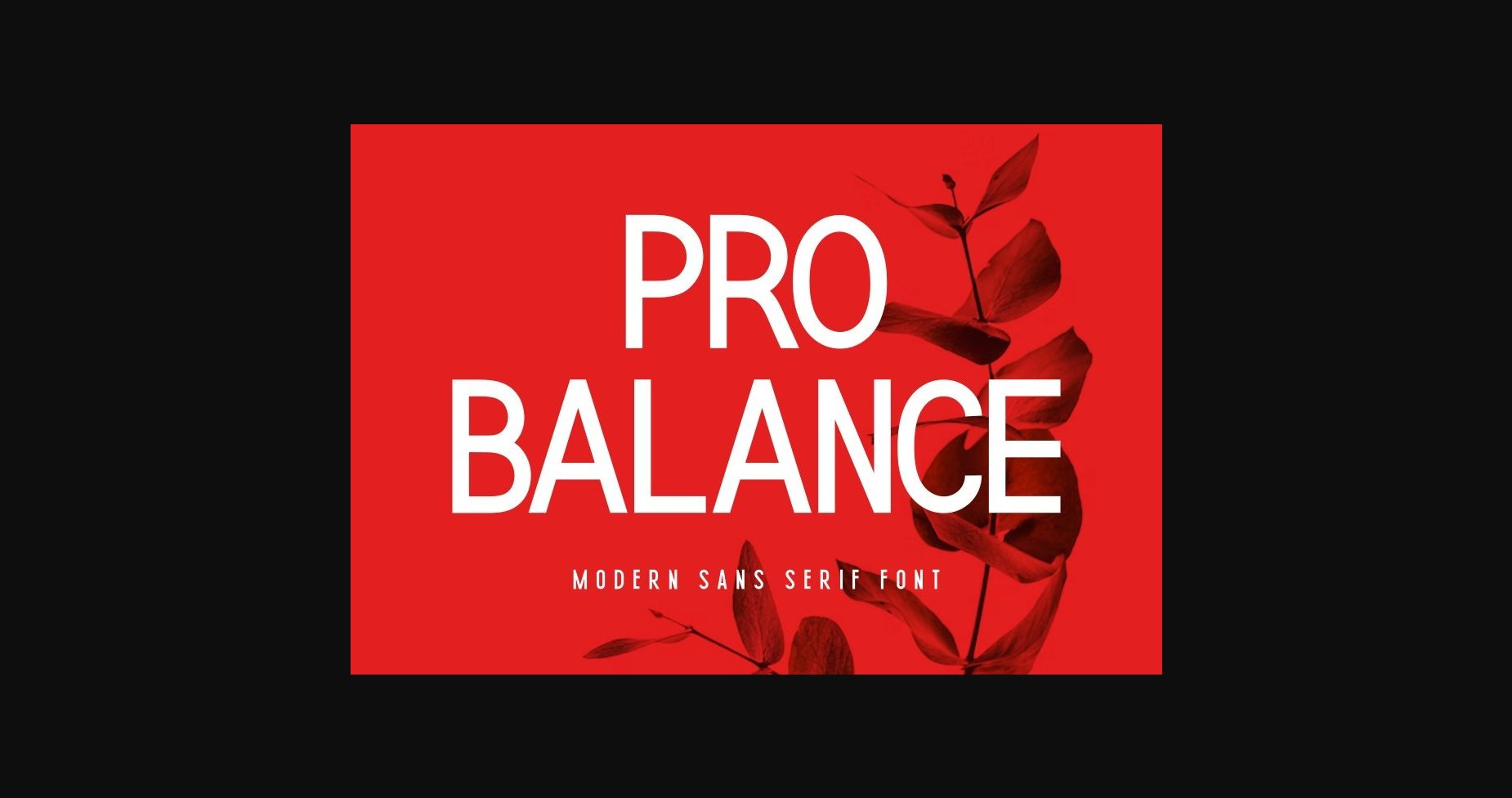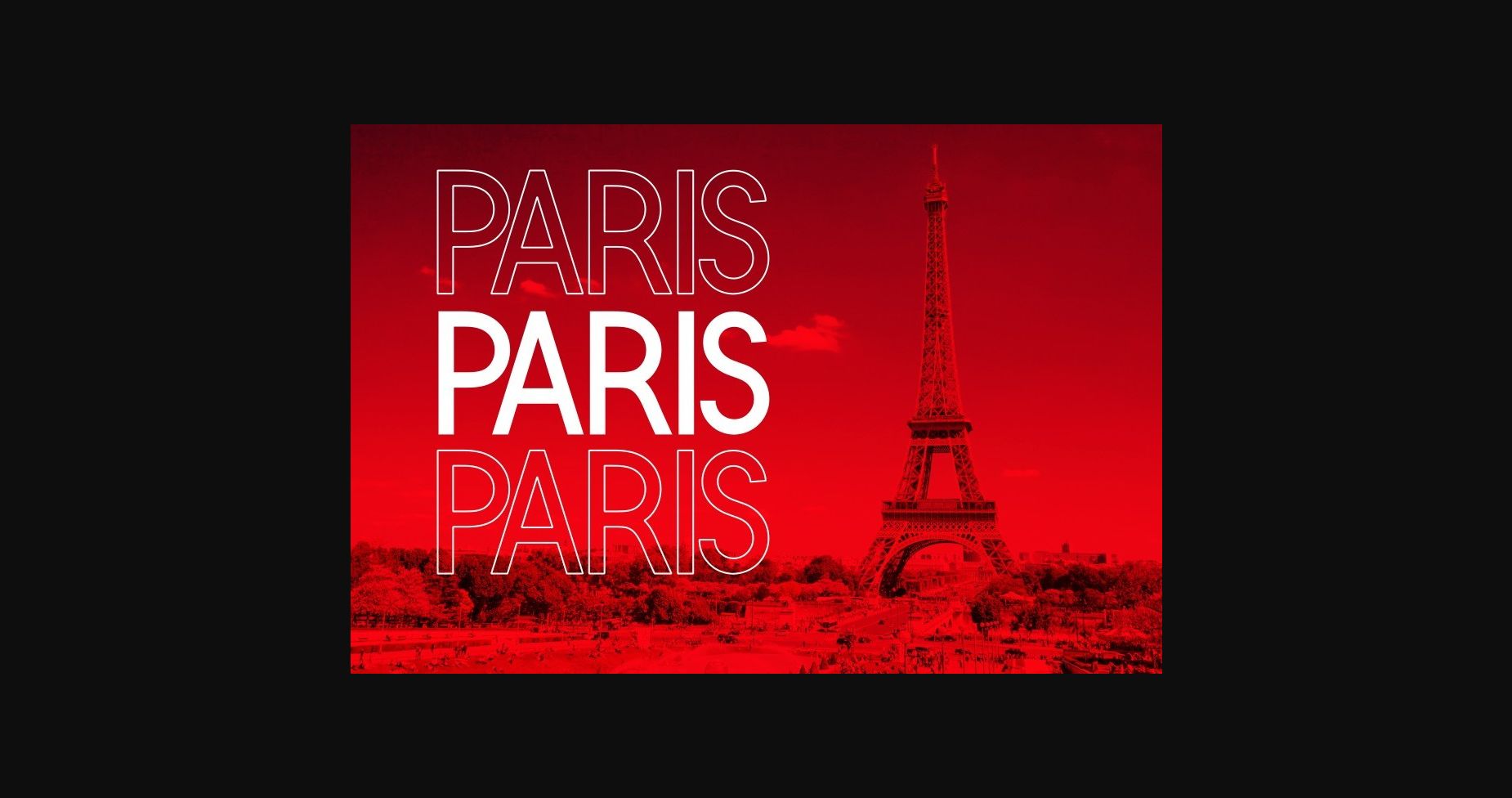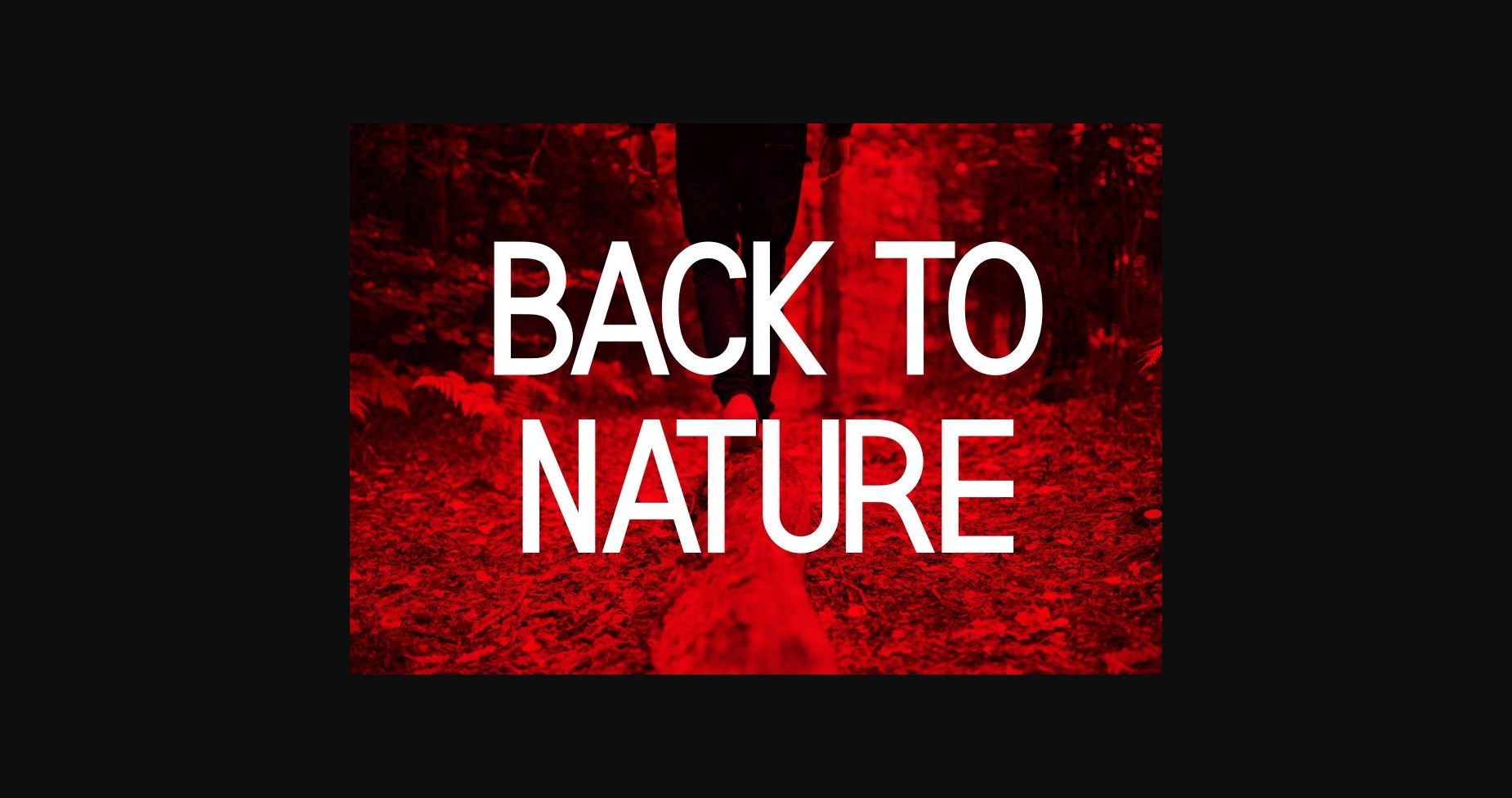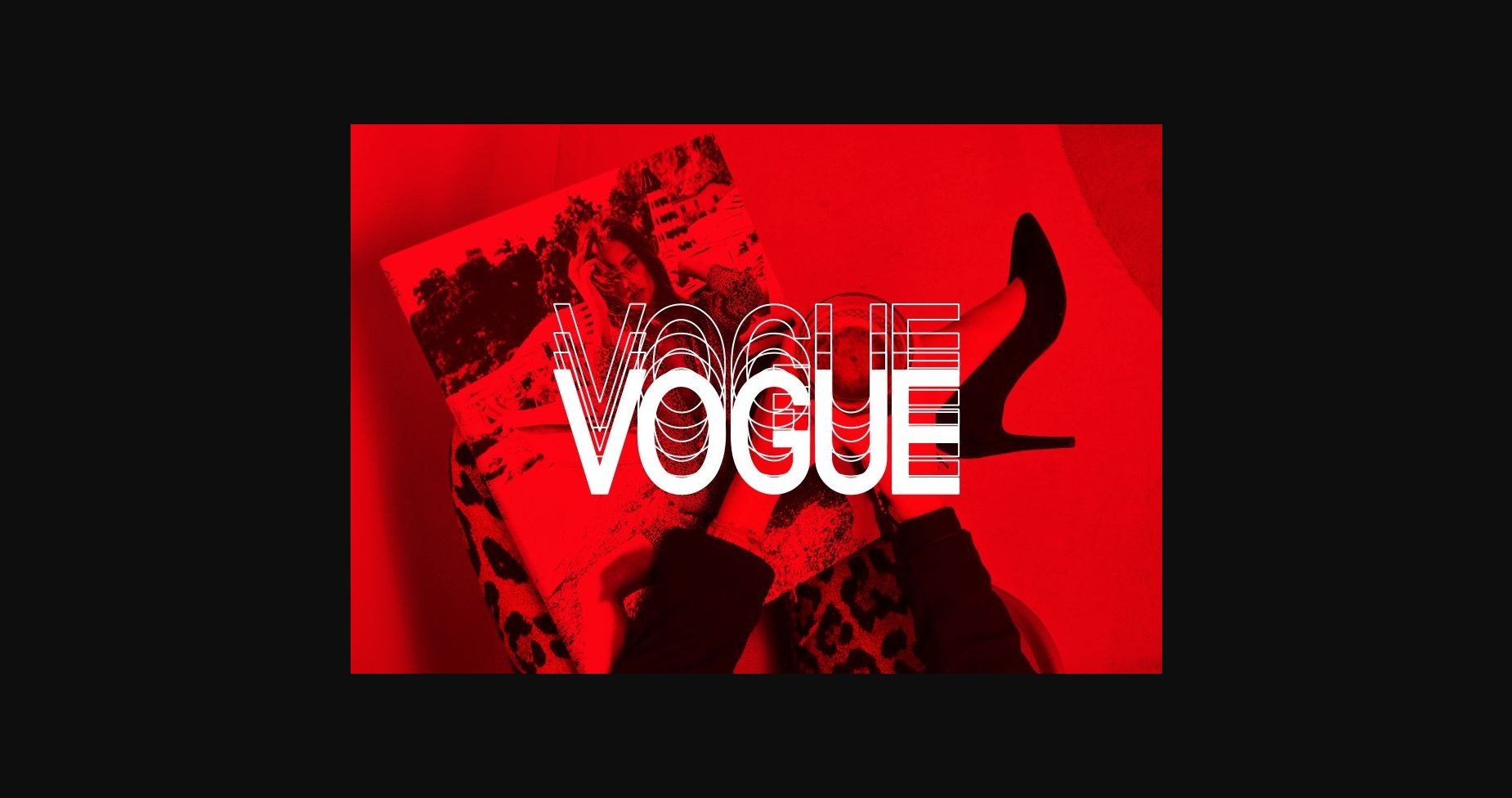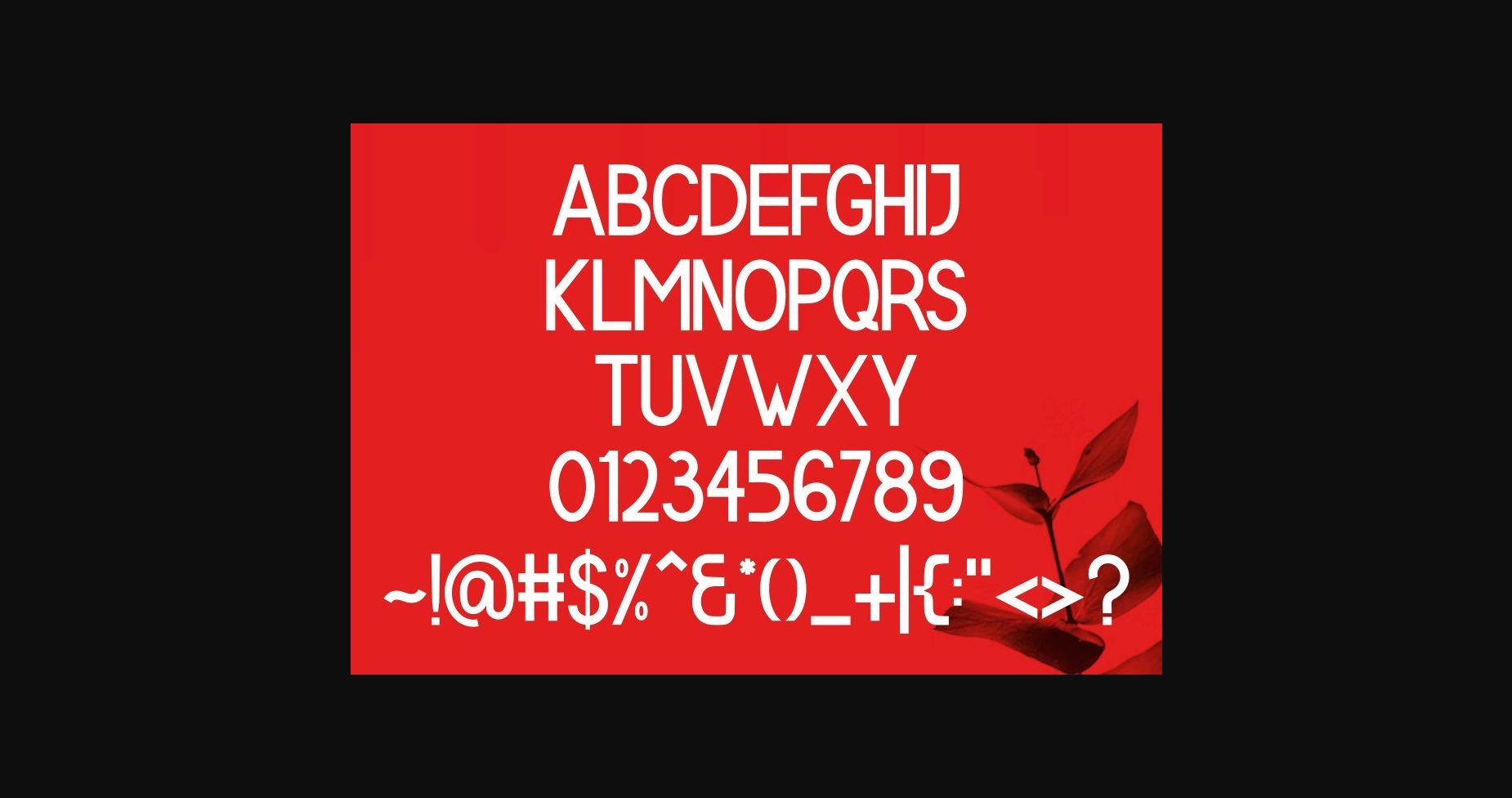
Pro Balance Font
About Pro Balance Font
Pro Balance is a classy and neat sans serif font. Add it confidently to your creative projects and you will love the results!